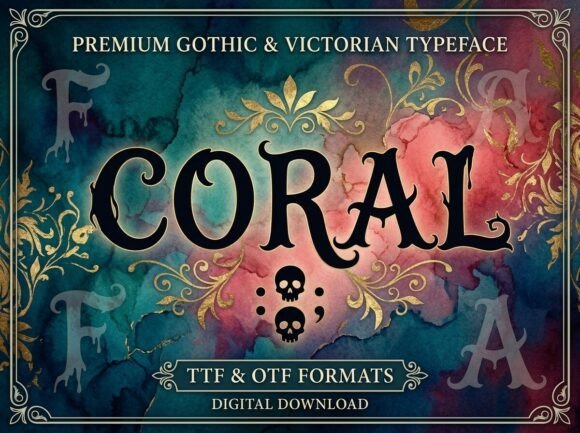
Unleash the Mystery of the Night with Coral Font
As a designer, there’s nothing quite like the rush of creating a piece that transports your audience to another world. For me, it’s the moment when the moon is full, and the shadows dance across the walls, casting an otherworldly glow. It’s in these moments that I crave a font that captures the essence of the night – something that whispers secrets and weaves tales of mystery and romance.
Enter Coral Font, a premium Gothic and Victorian typeface that embodies the very essence of the dark, romantic allure I’ve always sought. This exquisite font is a celebration of ornate high-contrast calligraphy, featuring sharp, thorny terminals paired with dramatic, sweeping swashes that evoke the mystery of moonlit gardens. Whether you’re crafting gothic editorial layouts or cinematic fantasy titles, Coral Font delivers a sense of polished professional power and legendary artisanal mystery that’s sure to leave your audience spellbound.
Coral Font Key Features
- Unique Characteristics: Coral Font features a unique, hand-drawn design with subtle texture and organic shapes, giving it a distinctive and eye-catching appearance.
- Character Set: Coral Font includes a comprehensive character set, including Latin, Cyrillic, and Greek alphabets, as well as a range of punctuation and special characters.
- Font Weight: Coral Font is available in a single weight, but can be easily paired with other fonts to create a range of visual effects.
Coral Font Review
Overall, I was pleasantly surprised by the Coral Font. Here are some aspects that caught my attention: ✨
- Unique style: The font has a distinctive, tropical feel to it, making it perfect for projects that require a fun and playful vibe.
- Good legibility: Despite its ornate design, Coral Font remains legible even at smaller font sizes, which is a major plus.
- Customizable: The font offers a range of weights and styles, allowing you to adjust it to suit your design needs.
- Limited versatility: While Coral Font works great for certain projects, it may not be the best choice for more formal or professional designs.
- May not be suitable for small text: The font’s ornate design can make it difficult to read in very small text sizes.
- Dependent on context: Coral Font’s effectiveness can be greatly influenced by the surrounding design elements and color scheme.
In conclusion, Coral Font is a solid choice for projects that require a fun and playful vibe. While it may have some limitations, it’s a great addition to any designer’s toolkit.
Tips for Getting the Most Out of Coral Font
Use Coral Font for headings and titles to add a touch of elegance to your designs.
Combine Coral Font with other fonts to create a unique and eye-catching look.
Coral Font is perfect for:
Brand logos and marketing materials
Special occasion graphics and designs